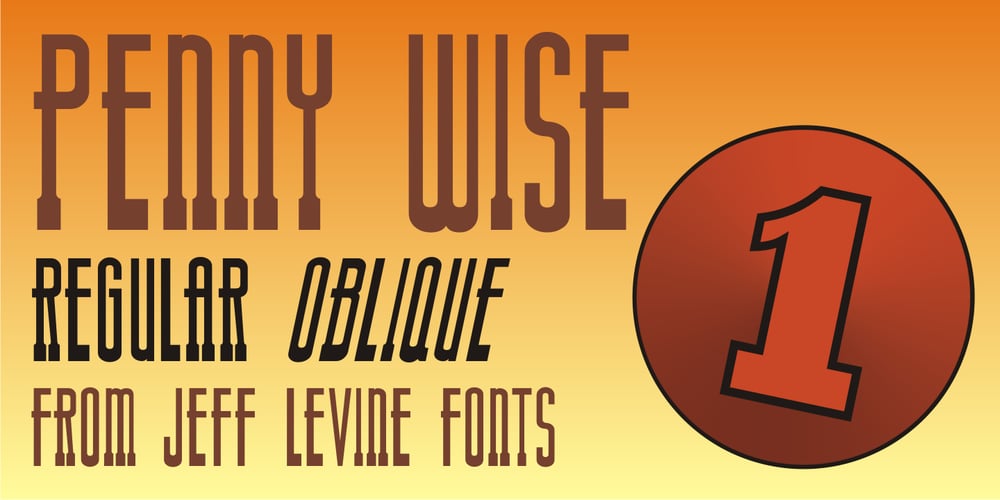
Penny Wise JNL Font Family was designed by Jeff Levine and published by Jeff Levine. Penny Wise JNL contains 2 styles and family package options. The unusually-shaped hand lettering of Penny Wise JNL was modeled from the cover of the 1936 sheet music for “You Dropped Me Like a Red Hot Penny”, and is available in both regular and oblique versions. Although it was drawn during the Art Deco period, this type of lettering design style was revived during the Hippie movement of the 1960s and 1970s.